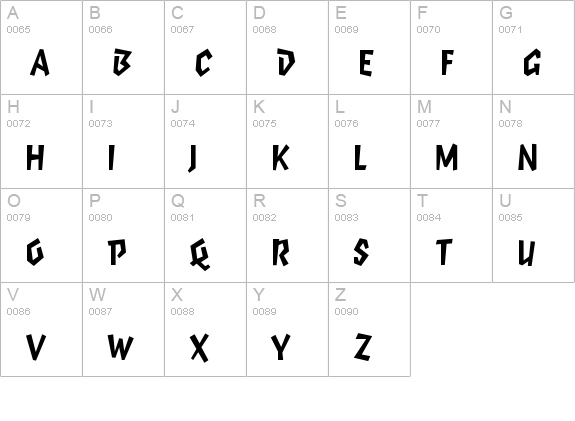
ElektrixBoldLining Bold Font Details
ElektrixBoldLining Bold is a strong, high-contrast variant in the ElektrixBoldLining typeface family \xE2\x80\x94 well suited to headlines, attention-grabbing titles, and strong calls-to-action.
ElektrixBoldLining Bold font is a striking and bold typeface that exudes power and modernity. Its sharp lines and strong presence make it perfect for headlines, titles, and designs that demand attention. The thick strokes and unique styling give ElektrixBoldLining Bold font a distinctive and memorable look that will make your text stand out. Best of all, ElektrixBoldLining Bold font is available for free download at FontsMarket.com. This means you can easily add this eye-catching typeface to your collection without any cost. Whether you're working on a branding project, poster design, or website, ElektrixBoldLining Bold font will help you make a bold statement with your text. Download it today and elevate your designs with this powerful and modern font.